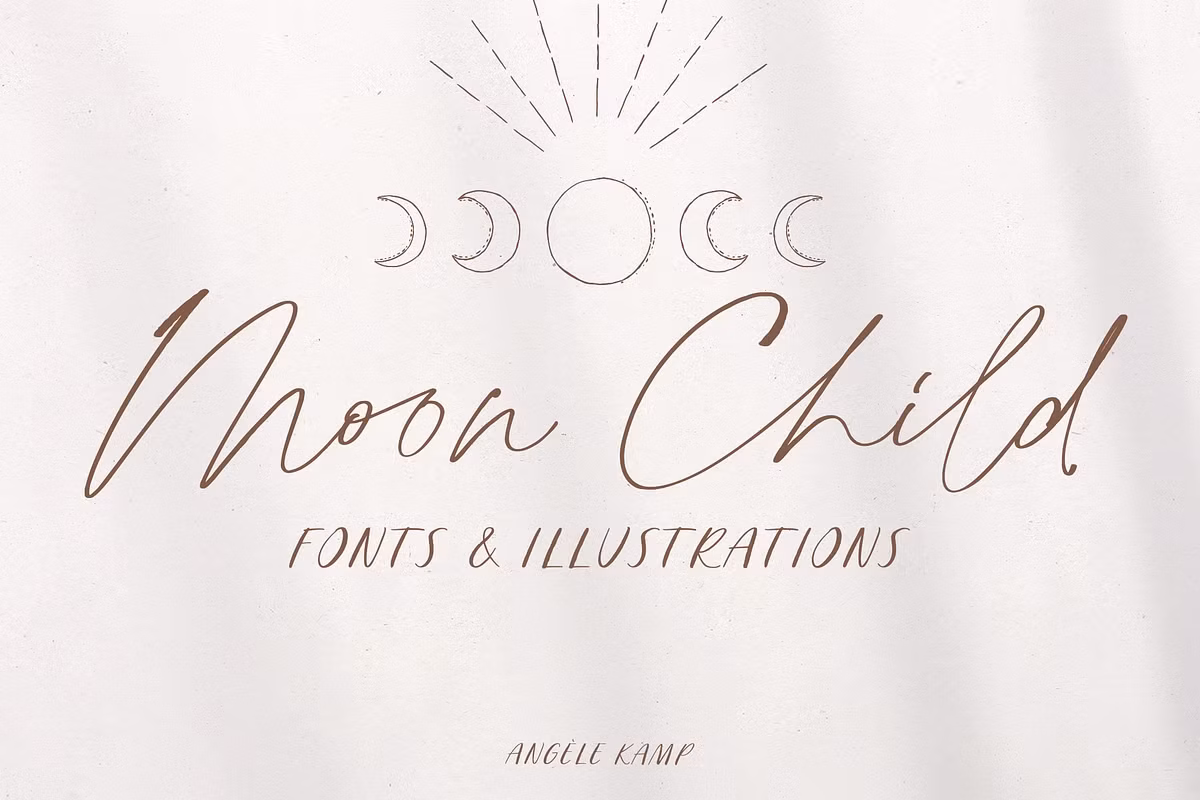
Moon Child Script Font + Sans Serif Free Download is a dreamy and versatile font duo that blends handwritten elegance with modern simplicity. Please note: you must purchase this font for commercial use, but you can test it through a free download. The flowing script adds a whimsical, celestial vibe, while the clean sans serif provides balance—making this pair perfect for logos, quotes, branding, social media, and lifestyle design.
Whether you're crafting a boho chic brand or designing heartfelt content, Moon Child Script Font + Sans Serif Free Download offers the perfect harmony of softness and clarity. Use them together or separately to create layouts that feel modern, magical, and full of personality. Fully compatible with Adobe Illustrator, Photoshop, Canva, and more, this duo fits beautifully into any design workflow. Download it today for personal use and let your creativity shine with the gentle beauty of Moon Child.